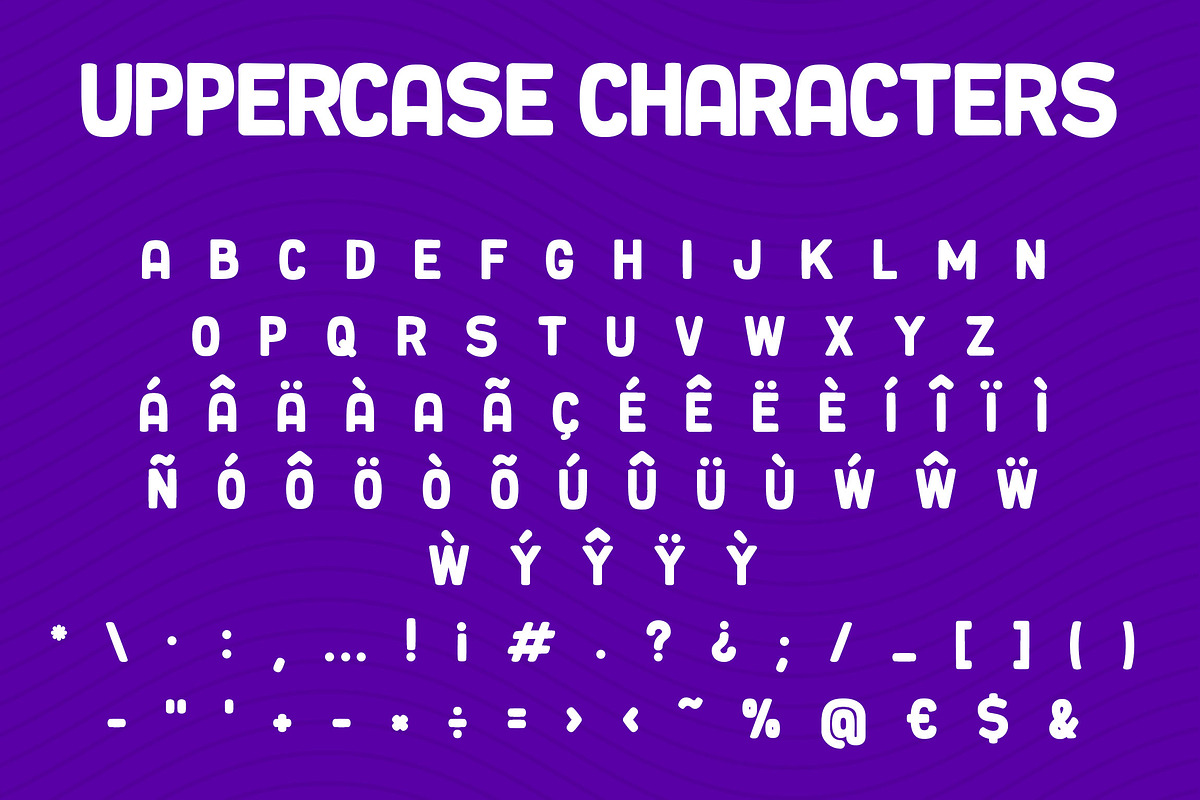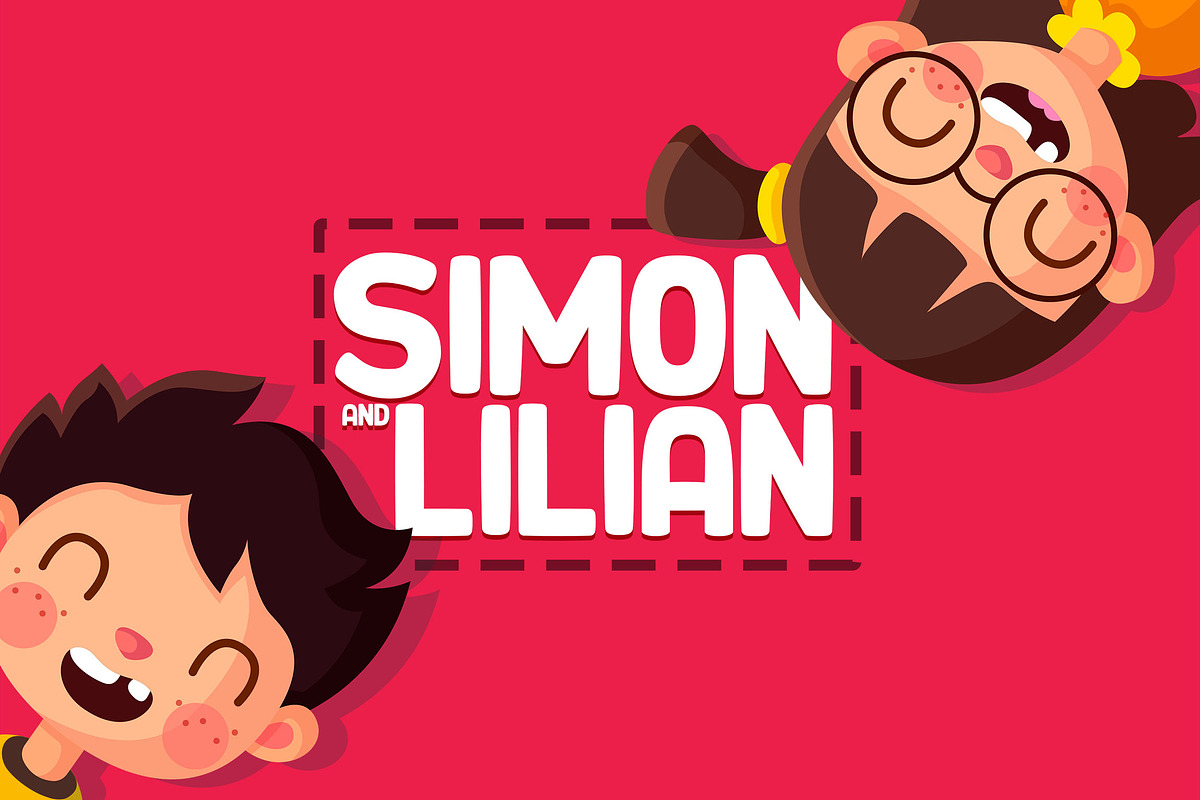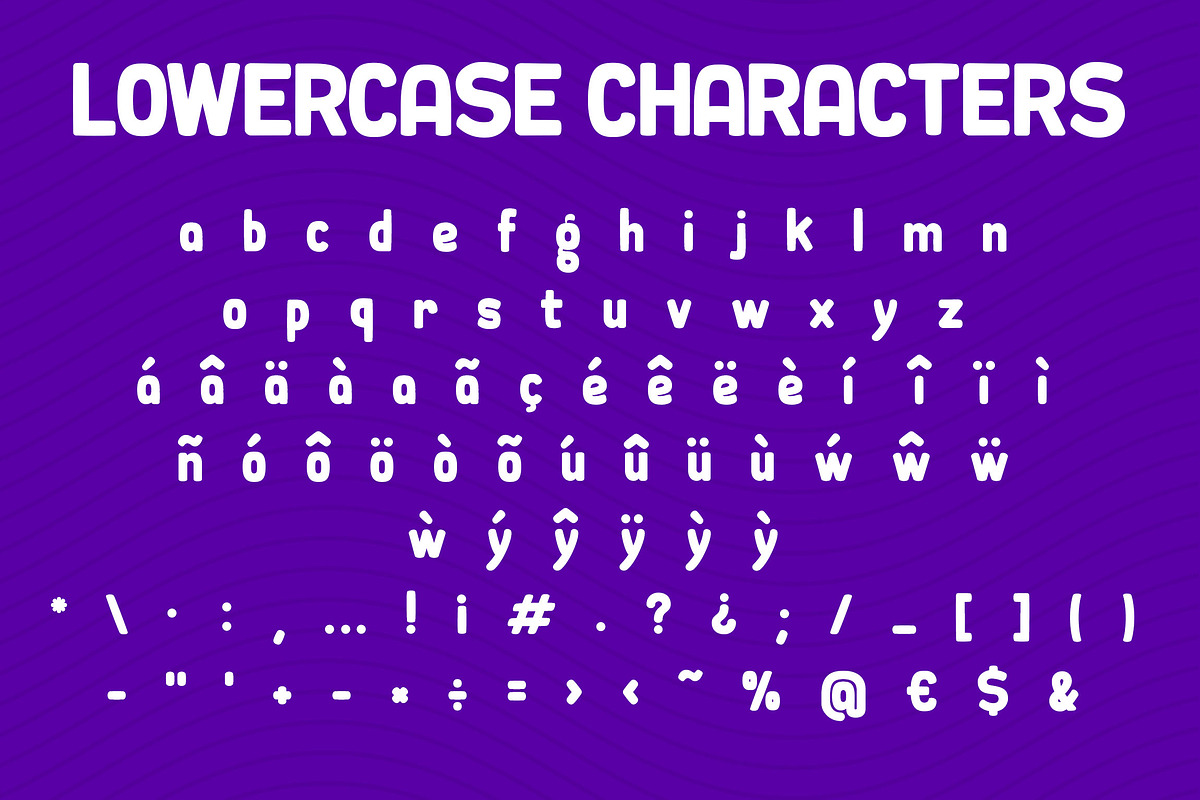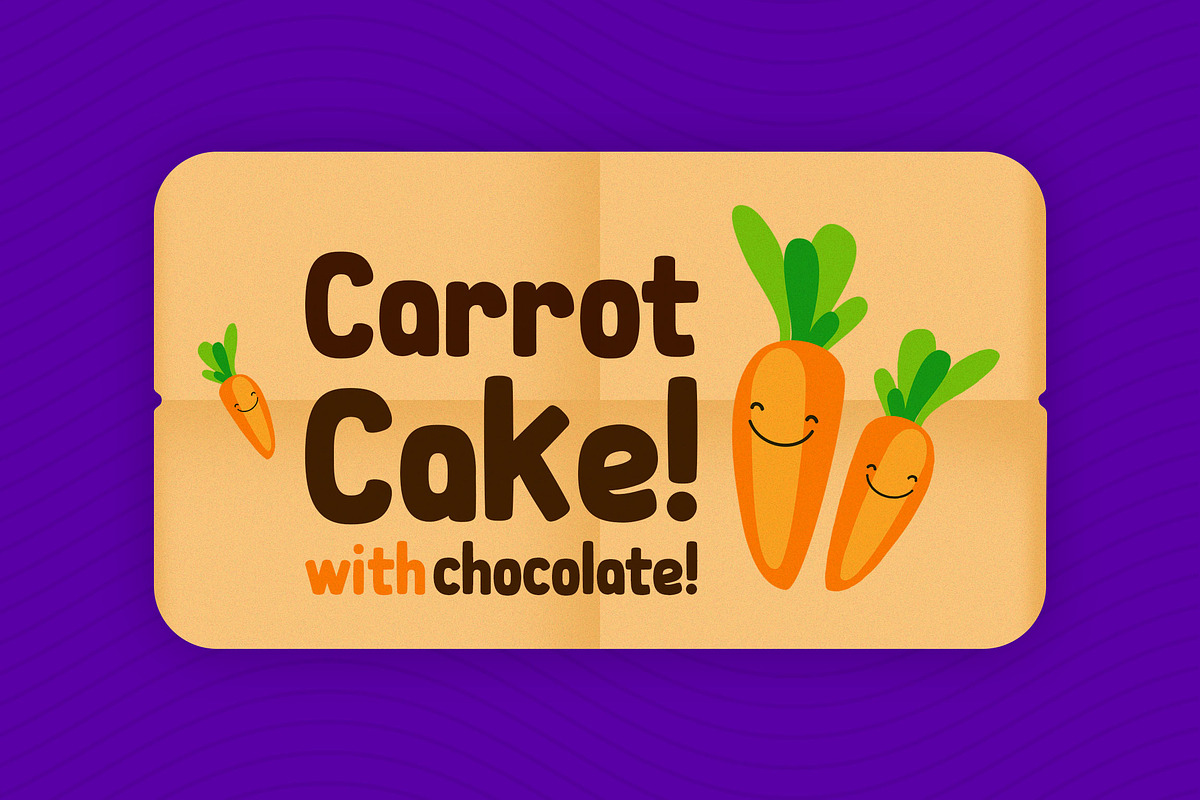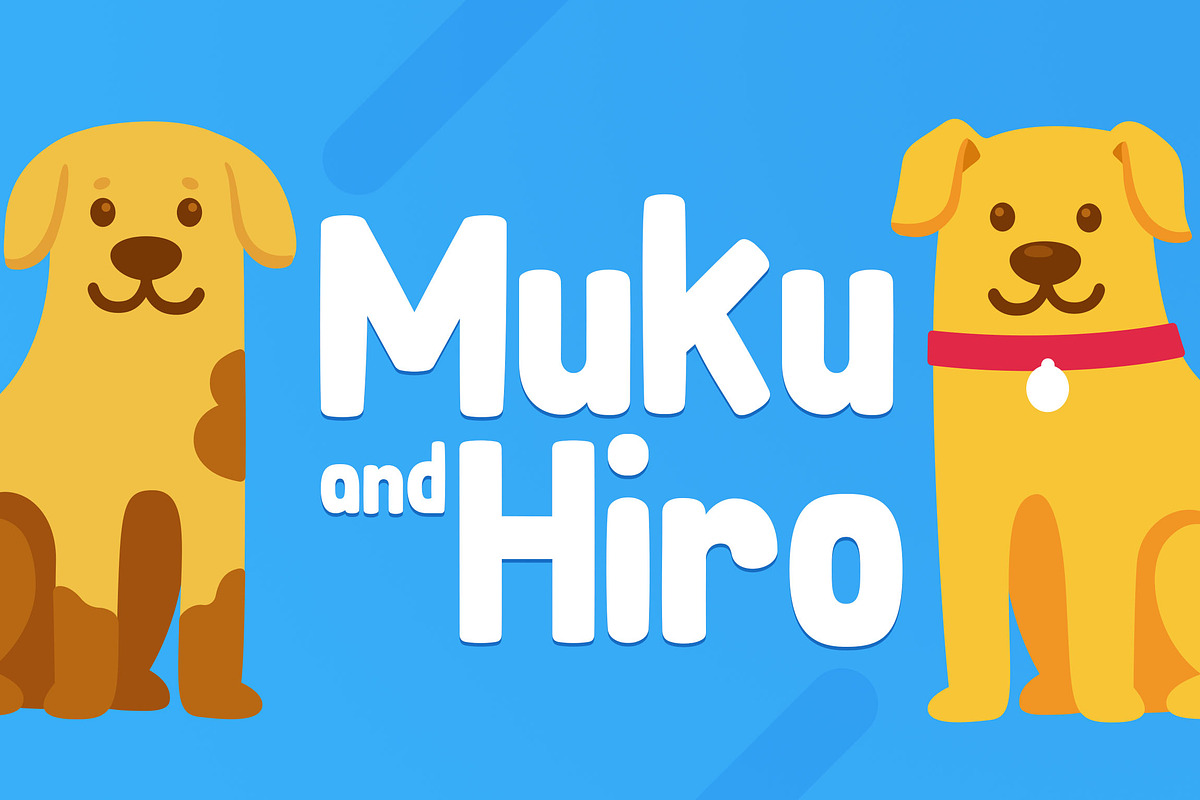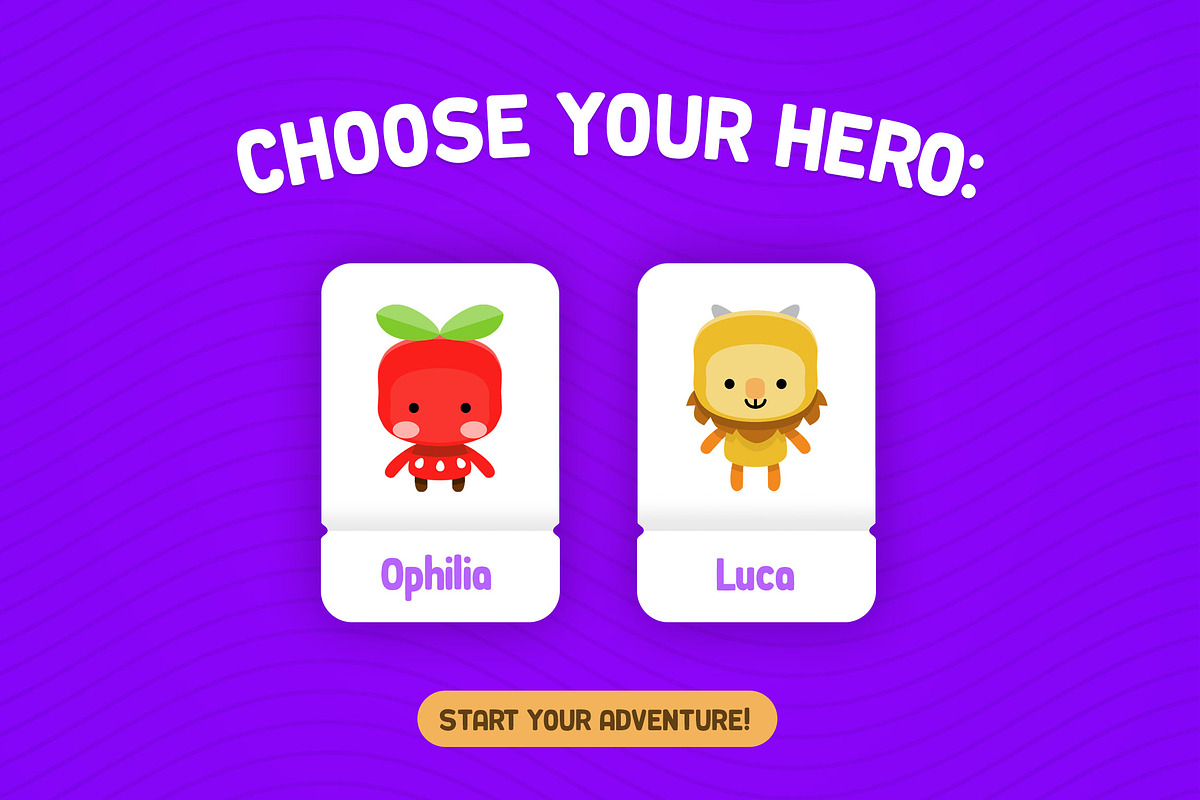
Lucita - Fun Sans Font
Introducing Lucita, a bold and fun font designed to bring joy and playfulness to your designs. With its round corners and cute appeal, this typeface is perfect for children's designs that aim to capture imagination and delight. Let Lucita add a touch of whimsy and charm to your projects, creating a vibrant and playful visual experience. Whether you're working on book covers, posters, or educational materials, Lucita is the ideal choice to bring out the childlike wonder in your designs. Embrace the boldness and embrace the fun with Lucita.
Language Support: English, Portuguese, Spanish and French.